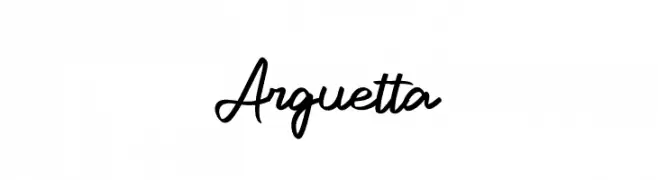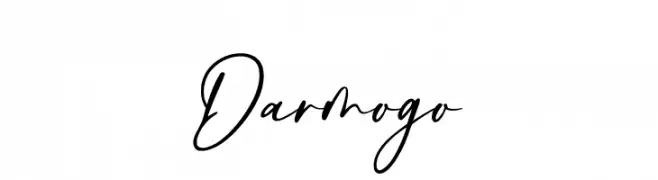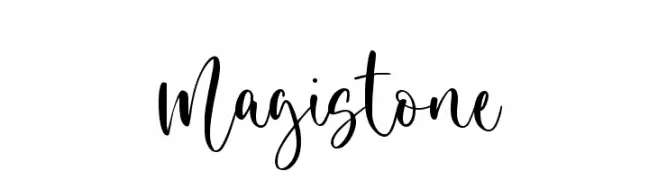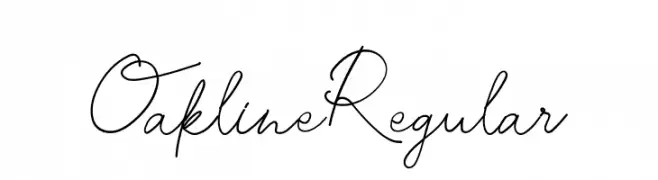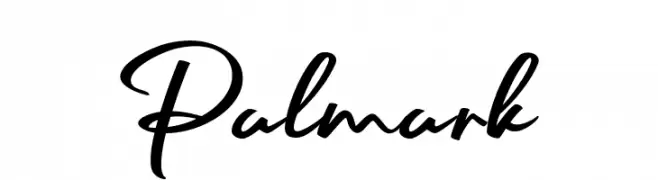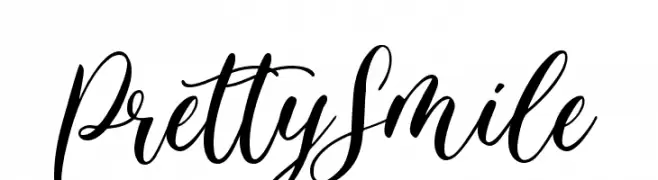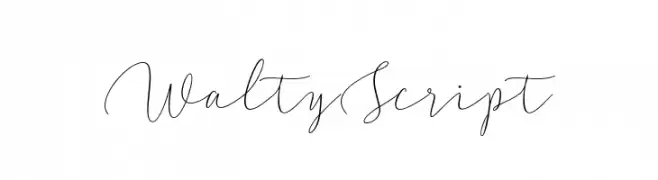
A graceful, handwritten script font with flowing, elegant strokes.
An elegant, cursive script font with fluid, connected letters and a refined appearance.
A graceful script font with flowing, elegant lines and a handwritten feel.
A graceful and elegant script font with flowing, cursive letterforms.
A fluid, elegant handwritten font with a natural, flowing style.
A graceful and fluid script font with a handwritten style.
A dynamic, cursive script font with medium contrast and elegant flow.
A lively, elegant script font with flowing, cursive letterforms.
A lively, handwritten script font with medium contrast and elegant curves.
A flowing, cursive script font with elegant, connected letters.